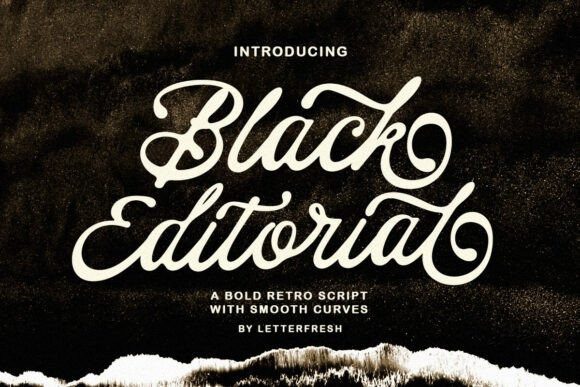
Black Editorial Font
Black Editorial Font Inspired by Modern Vintage & Retro styles and a combination with old American traditional style. Black Editorial allows you to create handwritten letters instantly and very practically. Ideal for logos, handwritten quotes, product packaging, headers, posters, merchandise, social media & greeting cards.